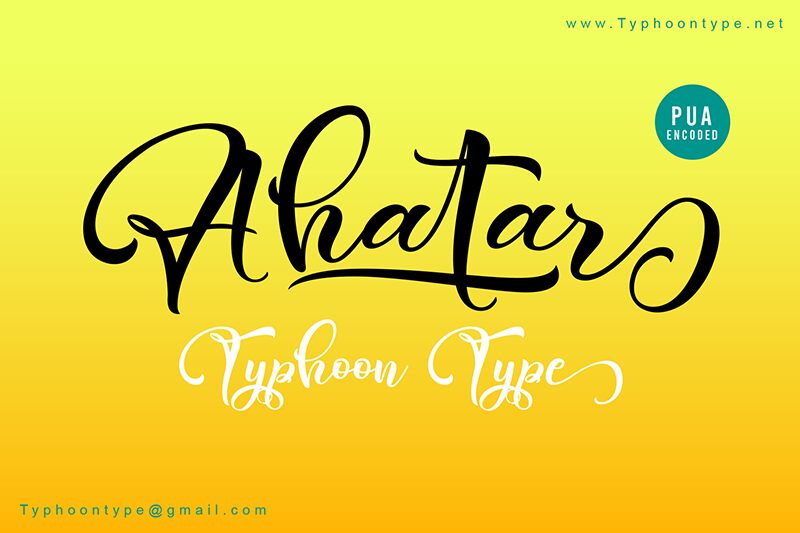
Ahatar, a beautiful calligraphy font by Typhoon Type - Suthi Srisopha, is the perfect choice for creating an elegant and unique look. With its light weight, it is perfect for projects such as wedding invitations or book covers.